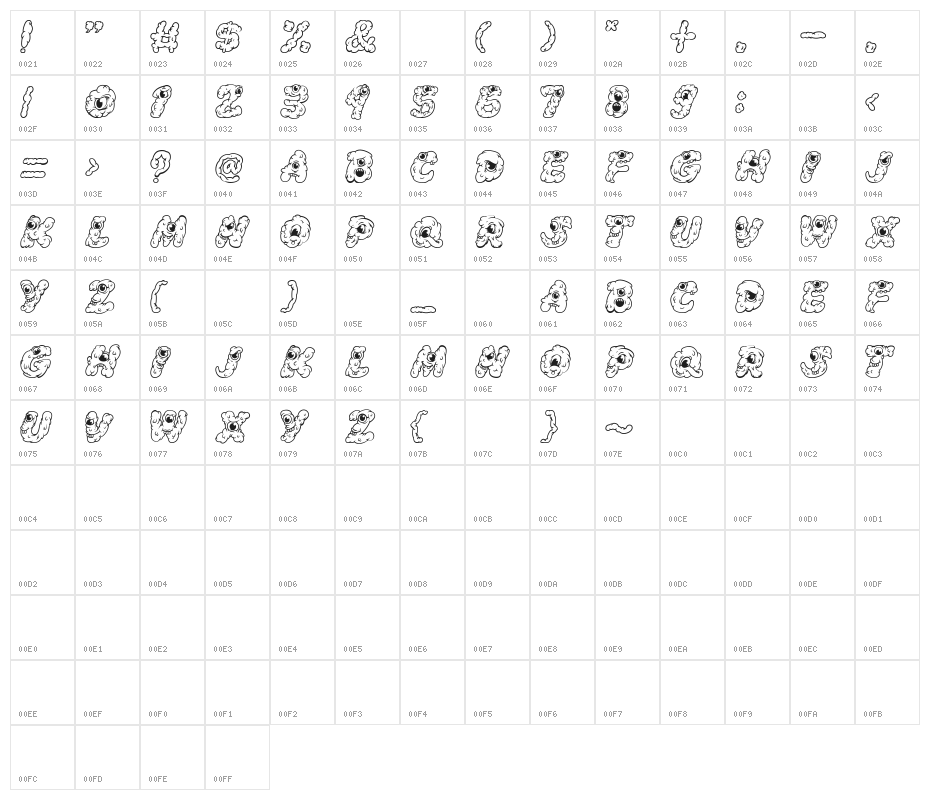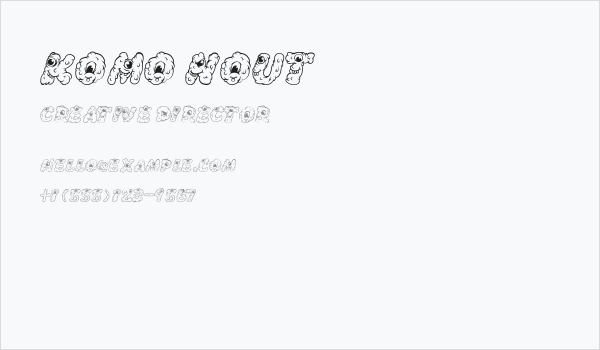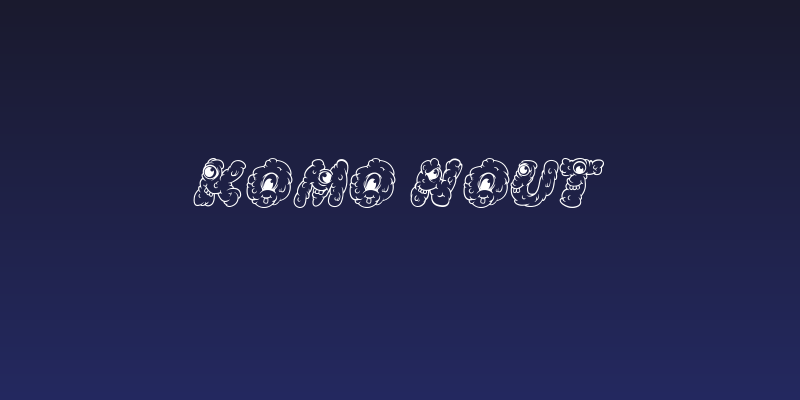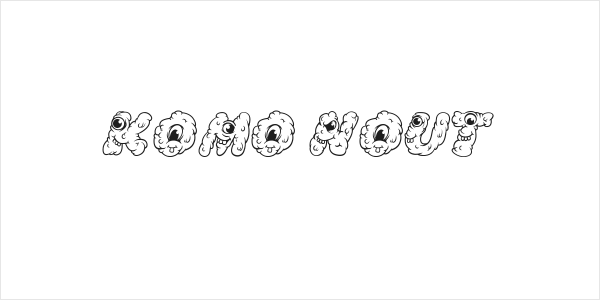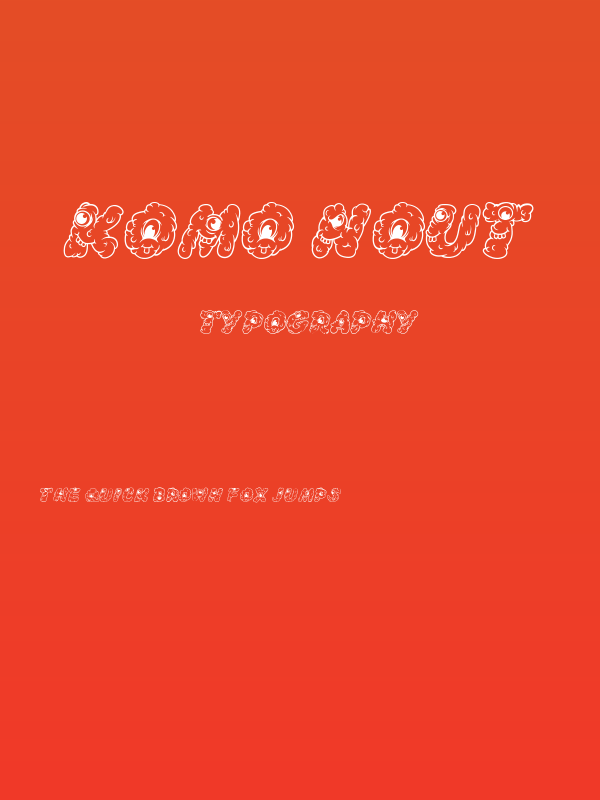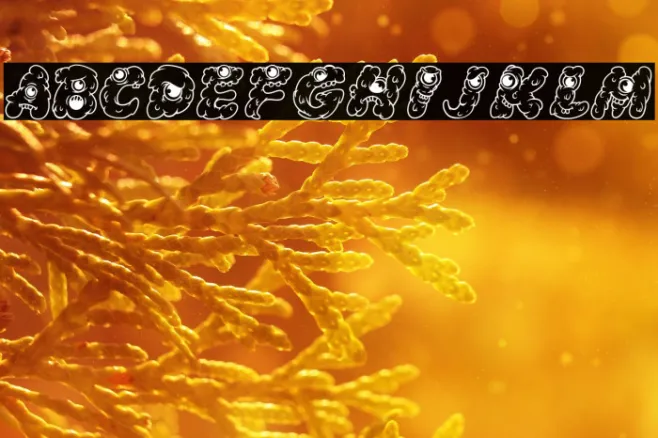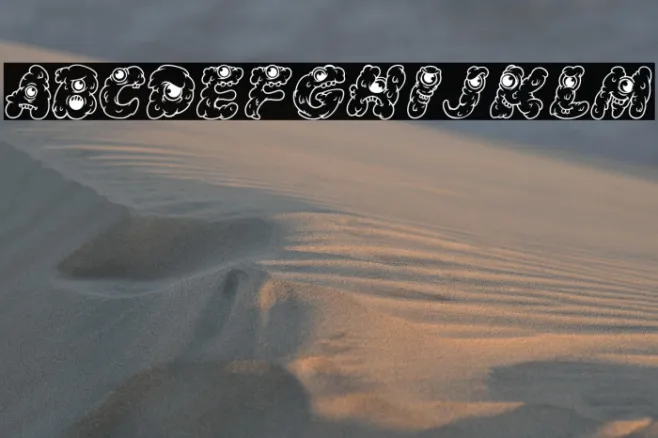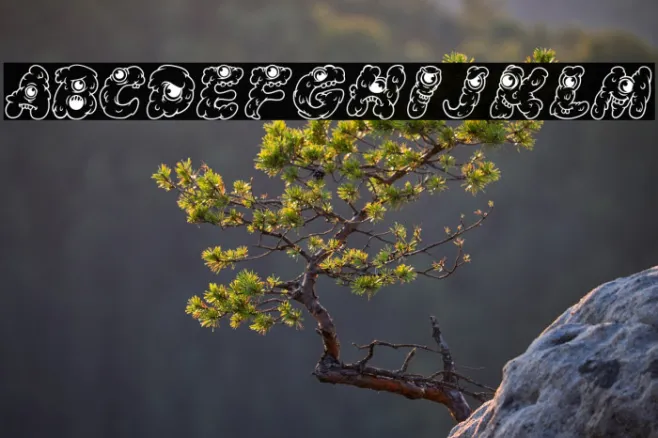
Komo Nout Font
Komo Nout Description
This font features a playful and whimsical design, with each character resembling a cartoonish, bubbly creature. The letters are filled with quirky eyes and exaggerated, rounded forms that give them a lively and animated appearance. The style is highly decorative, making it ideal for projects that require a fun and engaging visual element. The font includes both uppercase and lowercase letters, numbers, and a variety of special characters, all maintaining the same unique and imaginative style.
KOMO-NOUT UPPERCASE
KOMO-NOUT LOWERCASE
KOMO-NOUT OTHER CHARS